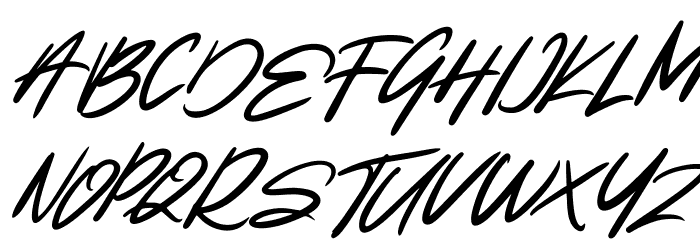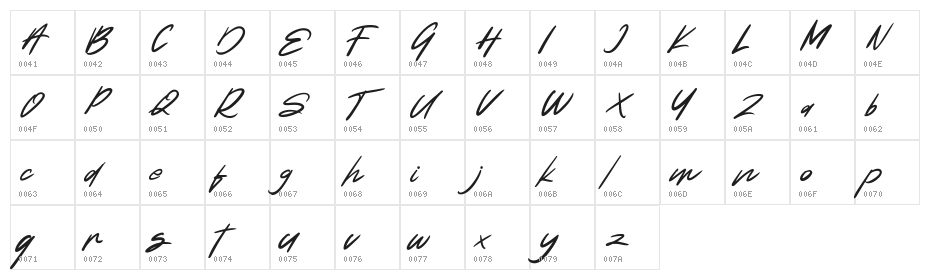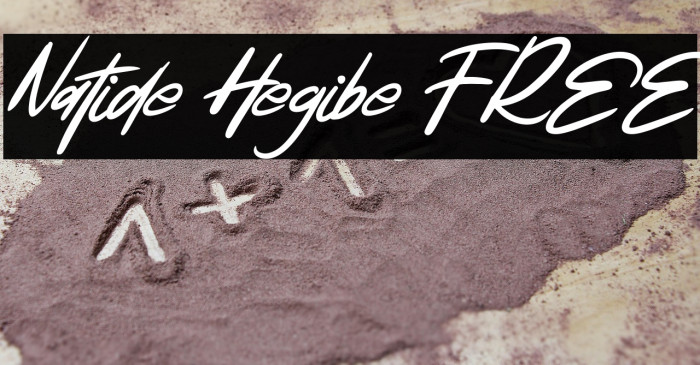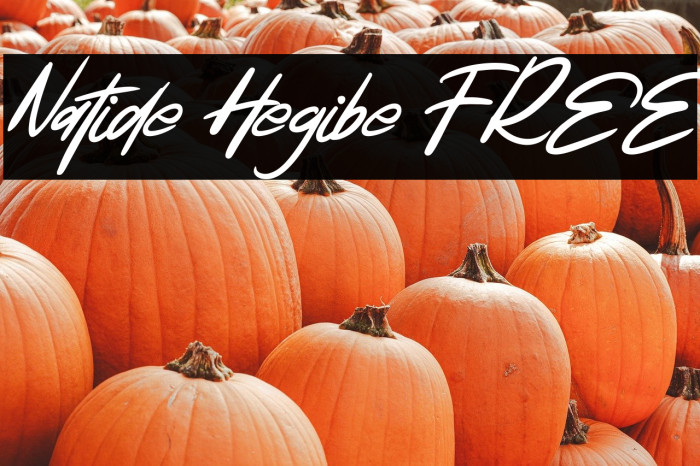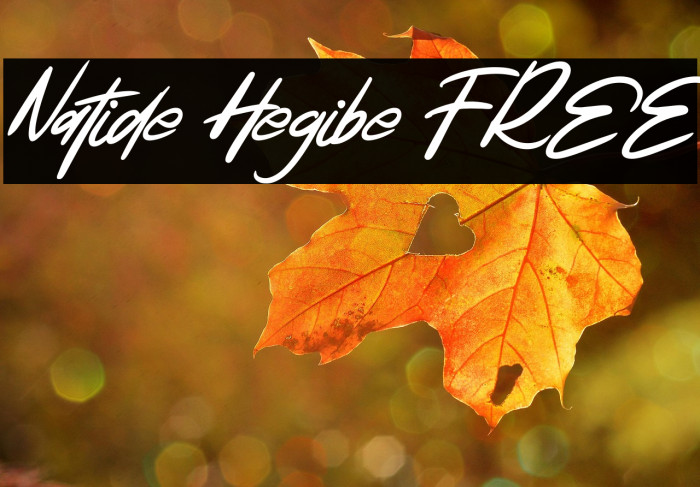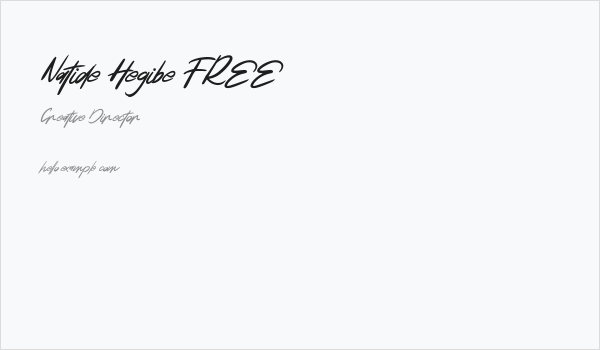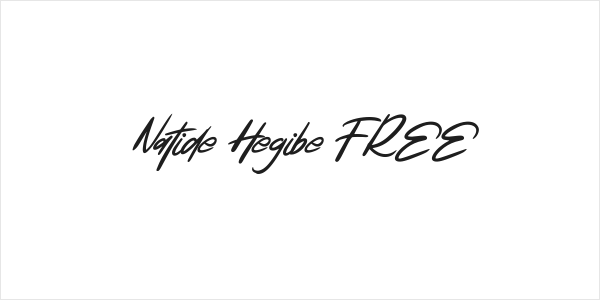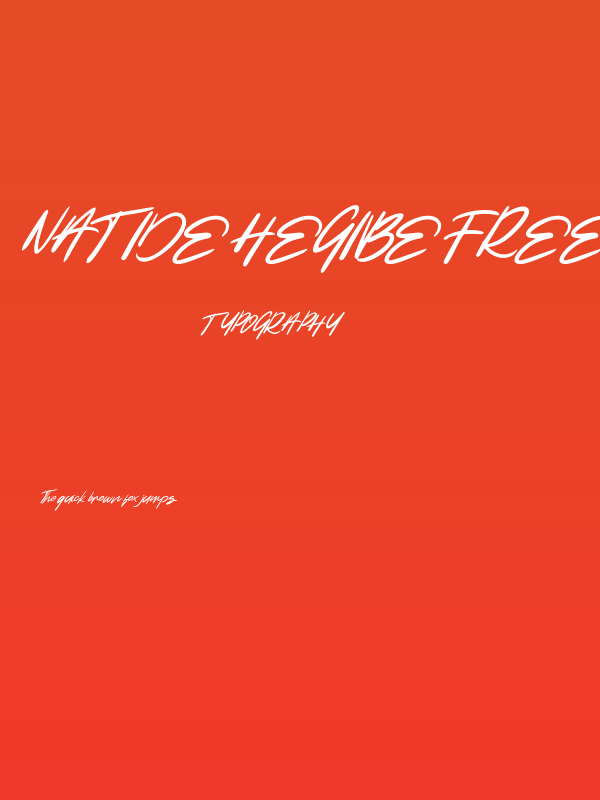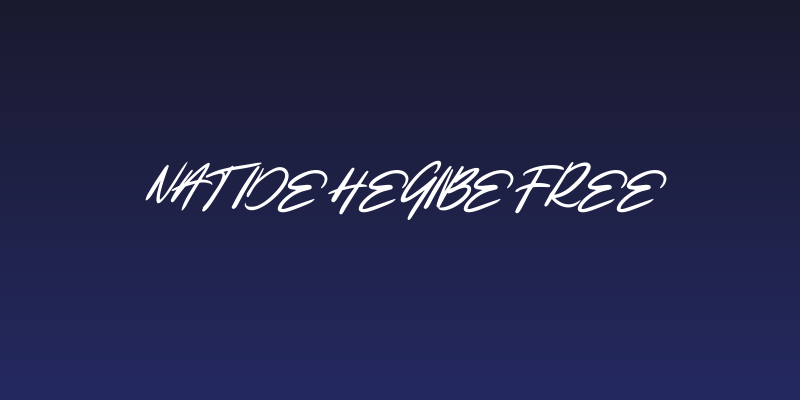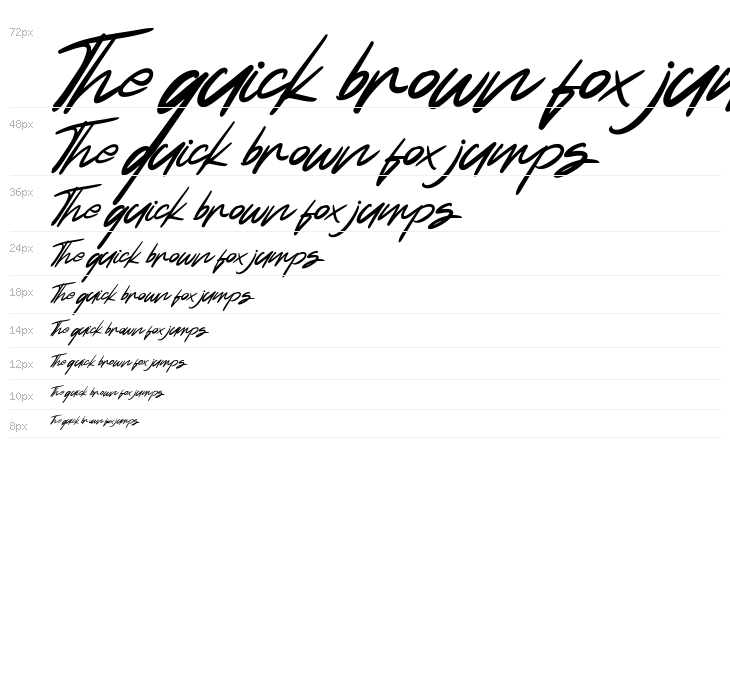
Natide Hegibe FREE Font
Natide Hegibe FREE Description
This font features a dynamic and energetic script style, characterized by its fluid and cursive letterforms. The strokes are bold and sweeping, giving a sense of motion and flair. Each character connects seamlessly, creating a cohesive and flowing appearance. The uppercase letters are slightly more angular, while the lowercase letters maintain a smooth, rounded quality. The font's overall look is modern and stylish, making it suitable for creative and expressive designs. The special characters are integrated well, maintaining the same lively and cursive style.
| Proposed Projects | Ideal for branding, logos, invitations, and artistic projects requiring a personal touch. |